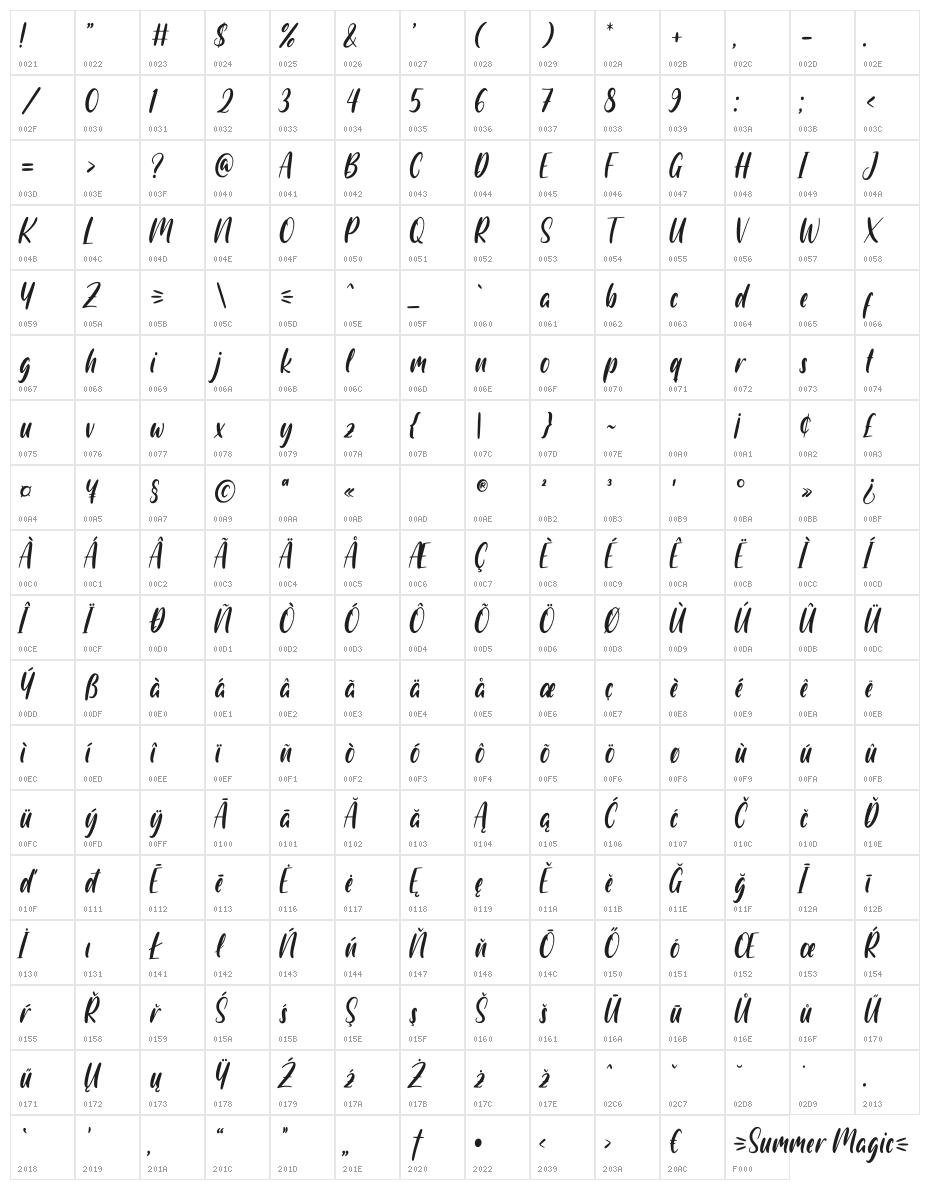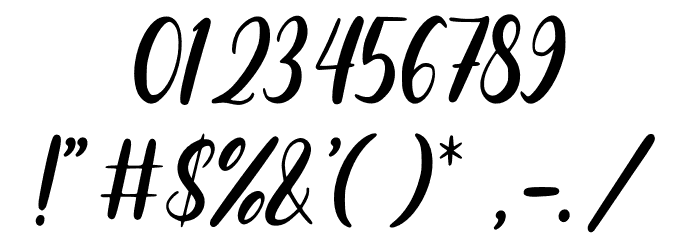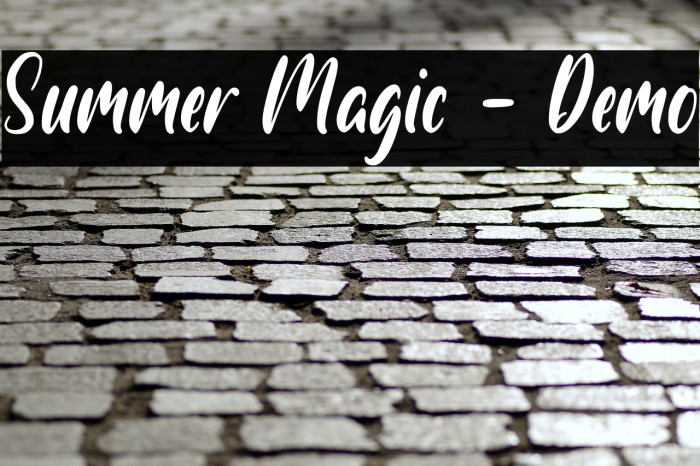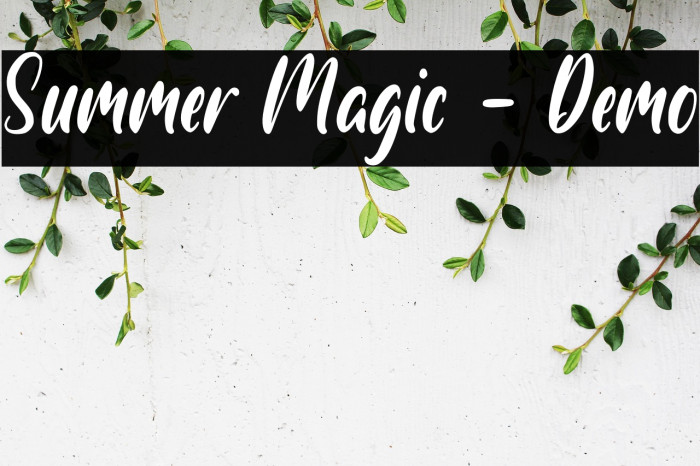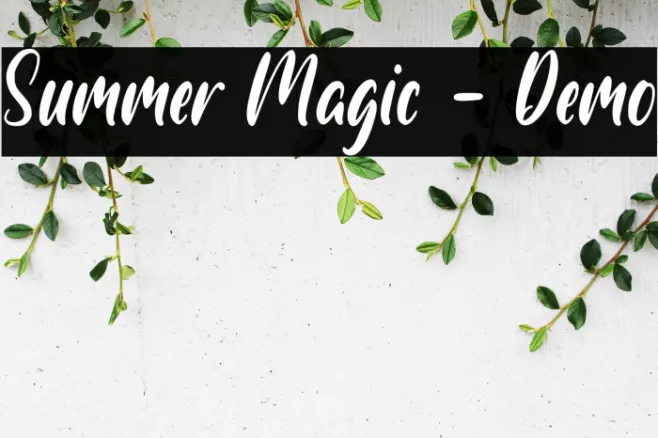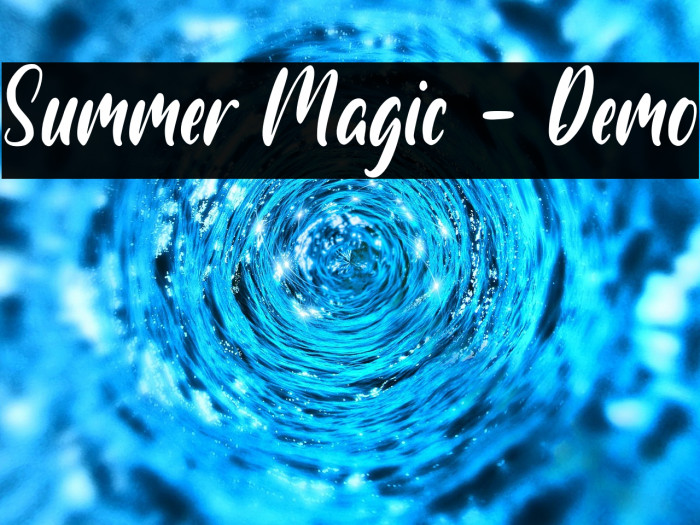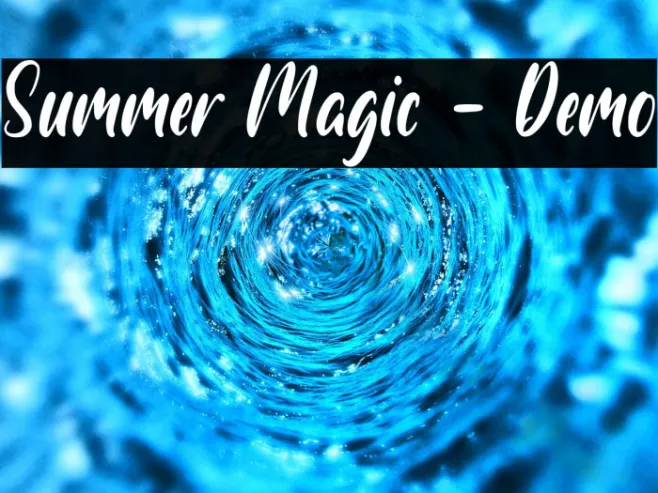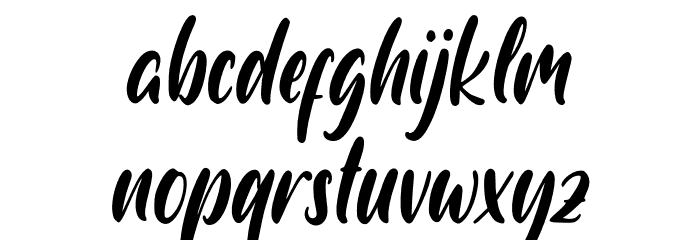
Summer Magic - Demo Font
Summer Magic - Demo Description
This font exudes a lively and playful character, featuring a handwritten style with smooth, flowing curves. The letters are slightly slanted, adding a dynamic feel, while maintaining legibility. The strokes vary in thickness, creating a medium contrast that enhances its energetic appearance. The uppercase and lowercase letters are well-balanced, with a consistent rhythm that makes it suitable for creative projects. The numerals and special characters complement the alphabet with the same whimsical flair, making it versatile for various design needs.
| Proposed Projects | Ideal for greeting cards, invitations, branding, and social media graphics. |